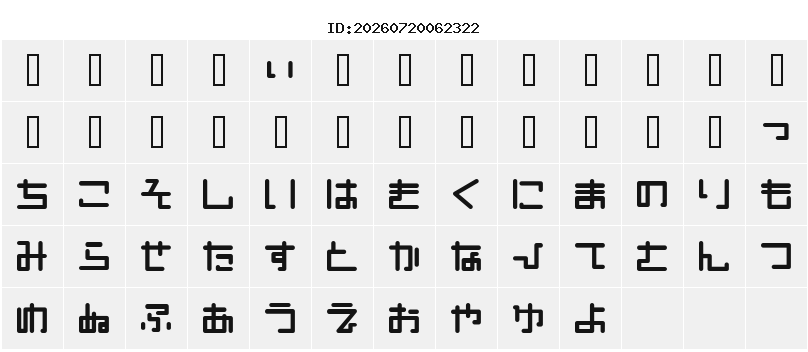
EOPshion Preview
• Font Name: EOPshion
• Full Font Name: EOPshion
About EOPshion.ttf
EOPshion.ttf is a modern, elegant sans-serif font designed for ultimate readability and visual harmony. Perfect for branding, headlines, web design, and print materials.